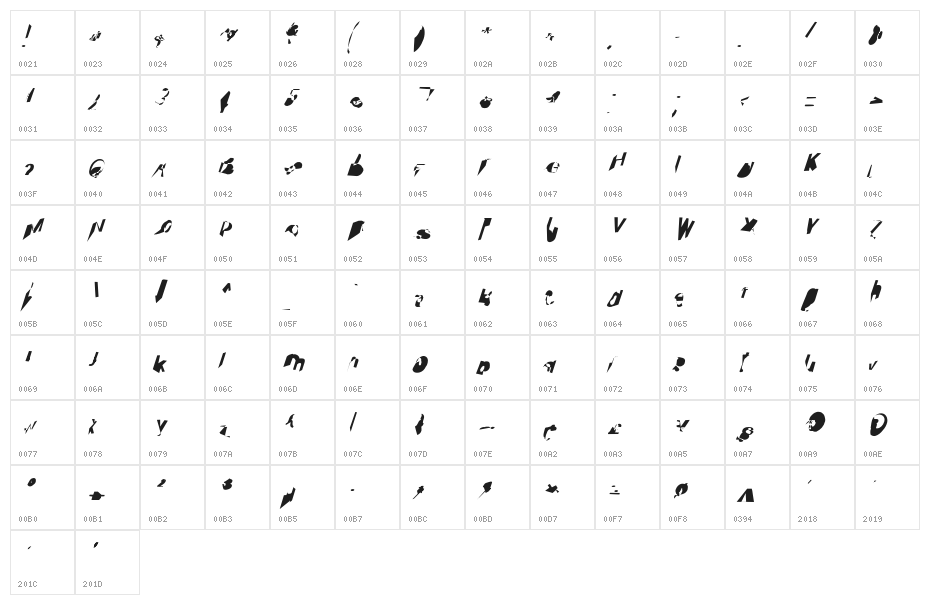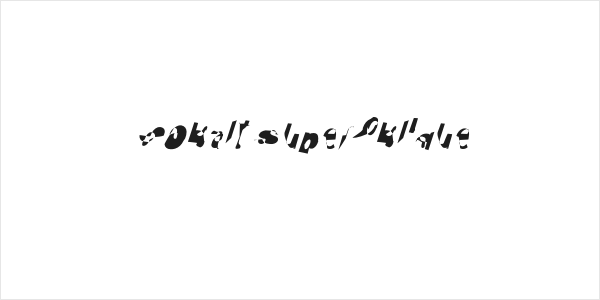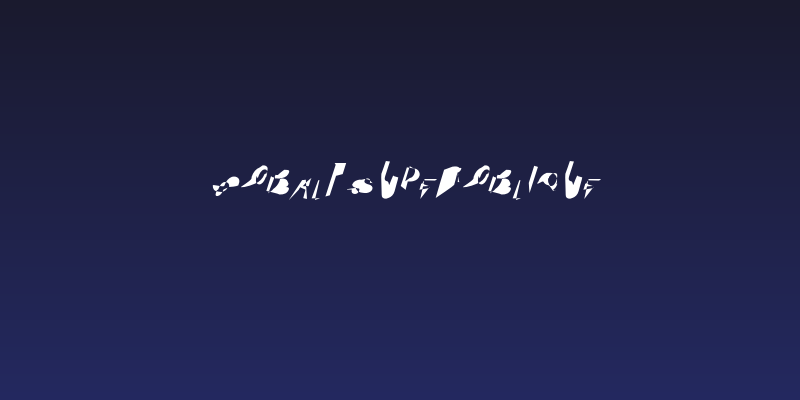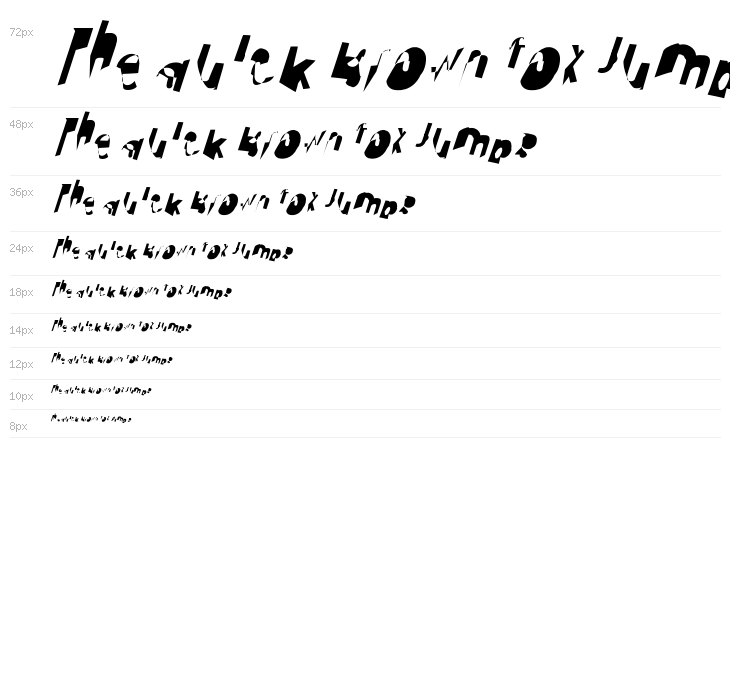
Cobalt SuperOblique Font
Cobalt SuperOblique Description
This font features a highly stylized and abstract design, characterized by its fragmented and distorted letterforms. Each character appears as if it has been sliced and shifted, creating a dynamic and chaotic visual effect. The strokes are bold and irregular, with varying thicknesses that add to the overall sense of movement and energy. The font's unique style makes it stand out, offering a modern and edgy aesthetic that is both artistic and unconventional.
| Overall Style | Modern, Abstract |
| Use Case | Headlines, Artistic designs, Posters |
| Proposed Projects | Ideal for avant-garde posters, album covers, and experimental graphic design projects where a bold statement is needed. |